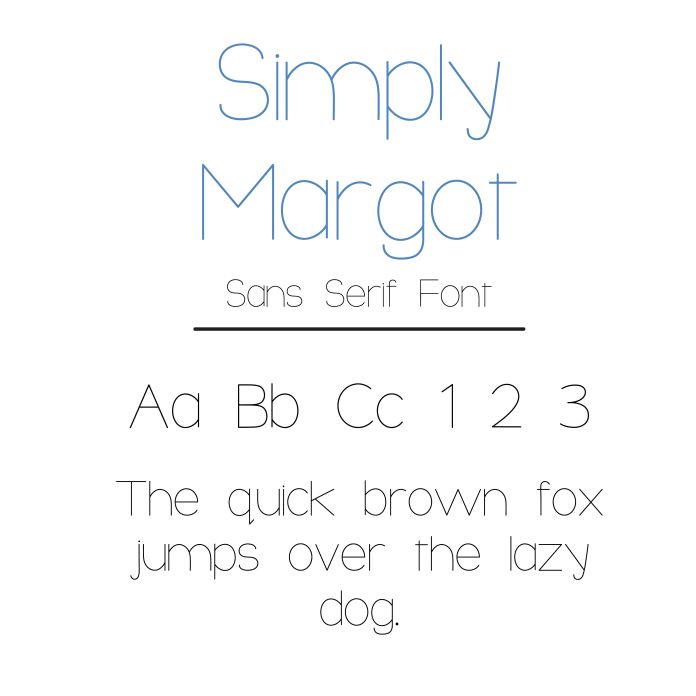
"Simply Margot" is a clean, modern sans serif font with a minimalist aesthetic, yet warm and approachable. Its simple lines and balanced letterforms make it easy to read, offering versatility across various applications. This font is perfect for branding, logo design, packaging, websites, and print materials, as it maintains a refined yet friendly appeal. Ideal for both headers and body text, "Simply Margot" brings a polished touch to presentations, social media graphics, and advertising, making it a go-to choice for sleek, professional design projects. The full alphabet, numbers, and most common keyboard glyphs are included with this font.